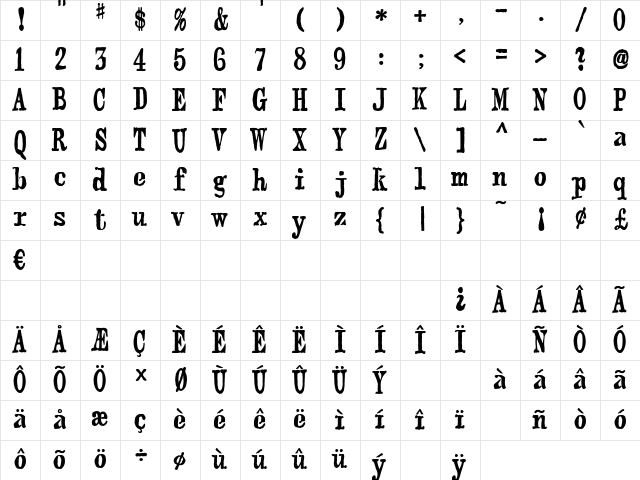
webster regular
Design Context for webster Typeface
webster is a composed and adaptable typeface that performs quietly and consistently across a wide range of design contexts.